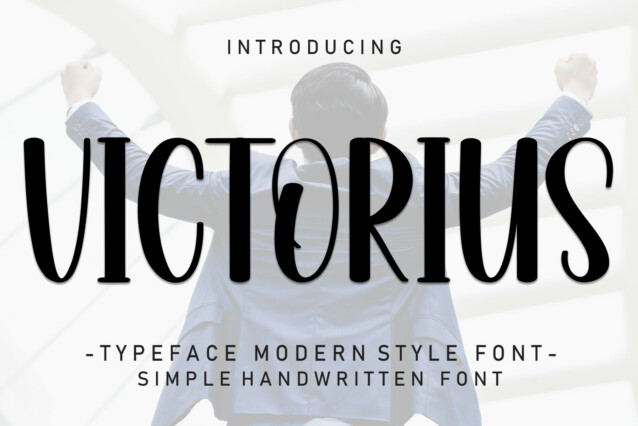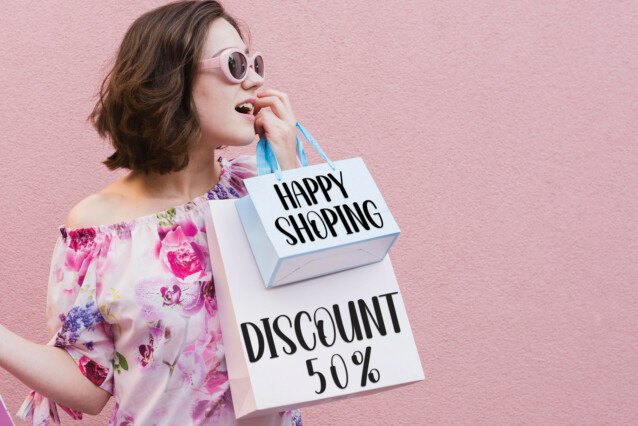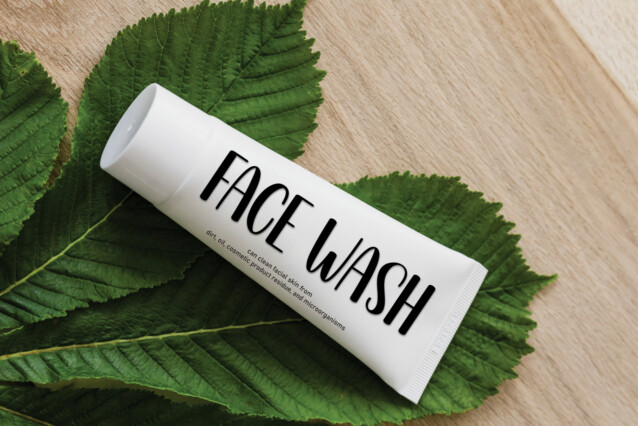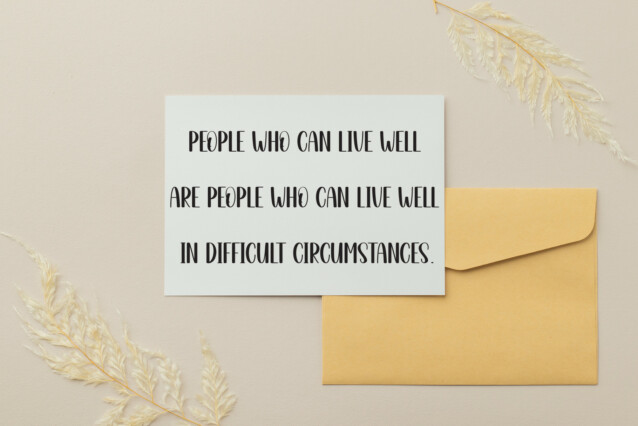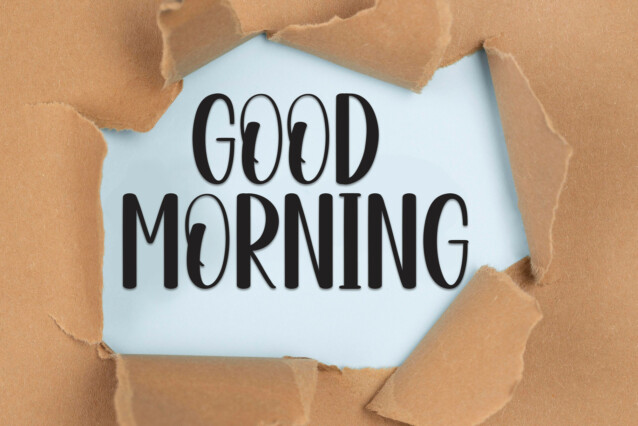
Victorious Display Font is a sweet and friendly handwritten display font. Cute and fun, this font is ideal for writing wedding invitations, cards, or any other design that might need a playful touch!